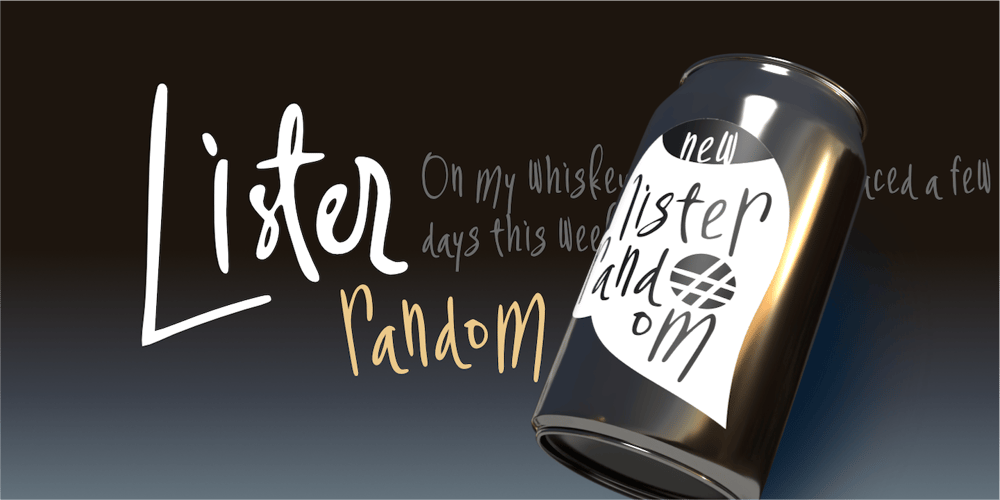
Lister Random
Lister Random font
Lister Random Font Family was designed by Wahyu Eka Prasetya, Afiat Sukmaraga and published by Hati. Lister Random contains 1 styles and family package options. Perfect for projects that need a bold statement, this font is ideal for headlines, posters, and any design that seeks to capture a sense of raw energy and rebellion. It brings a visceral impact to your words, ensuring they leave a lasting impression.